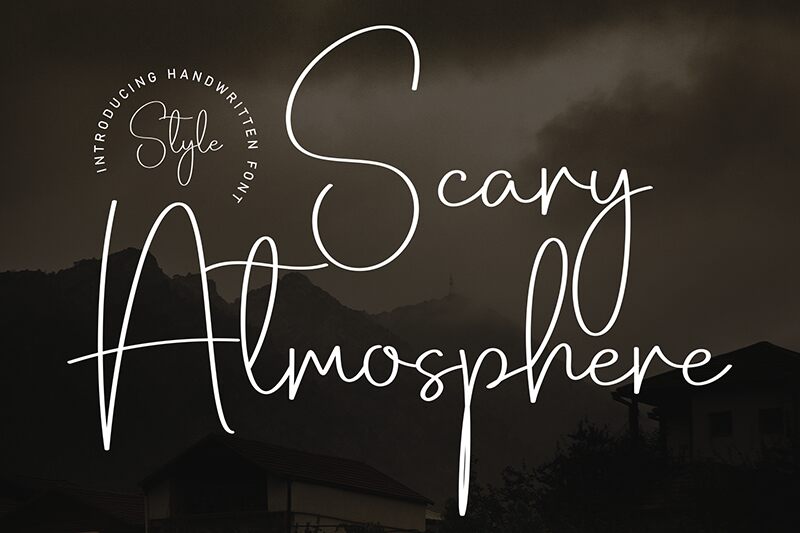
Scary Atmosphere
Scary Atmosphere font by Scratchones is a light handwritten typeface that brings an elegant and flowing essence to any design. With its artistic flair and modern aesthetic, it evokes the personal touch of handwritten text, creating a memorable visual experience.
This free handwritten font is ideal for wedding invitations, book covers, personalized stationery, greeting cards, business cards, art posters, social media graphics, logo design, packaging design and more.